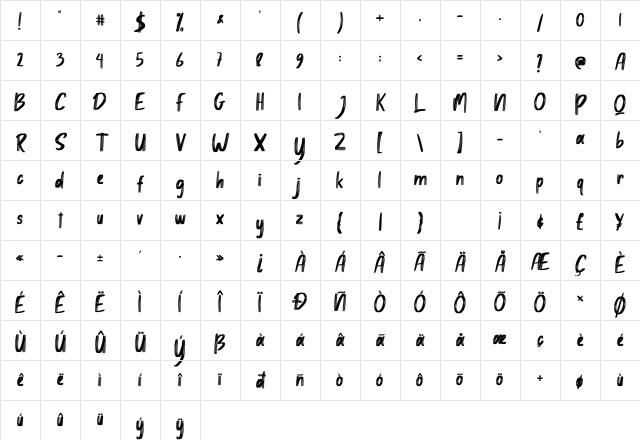
Tronthon Regular Free Font
Tronthon Regular
Designer: Skiiller studio - M irfan mahmudin
Design Context for Tronthon
Tronthon is a composed and adaptable typeface that performs quietly and consistently across a wide range of design contexts.